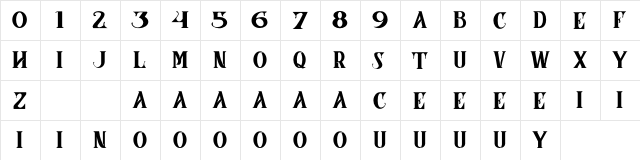
Corona Demo Version Regular Free Font
Corona Demo Version Regular
Foundry: Nirmana Visual
Designer: Sigit Dwipa
Complete Corona Demo Version Regular glyph index. Displaying only characters natively supported by Corona Demo Version Regular font.
Design Context for Corona Demo Version
Corona Demo Version is a composed and adaptable typeface that performs quietly and consistently across a wide range of design contexts.